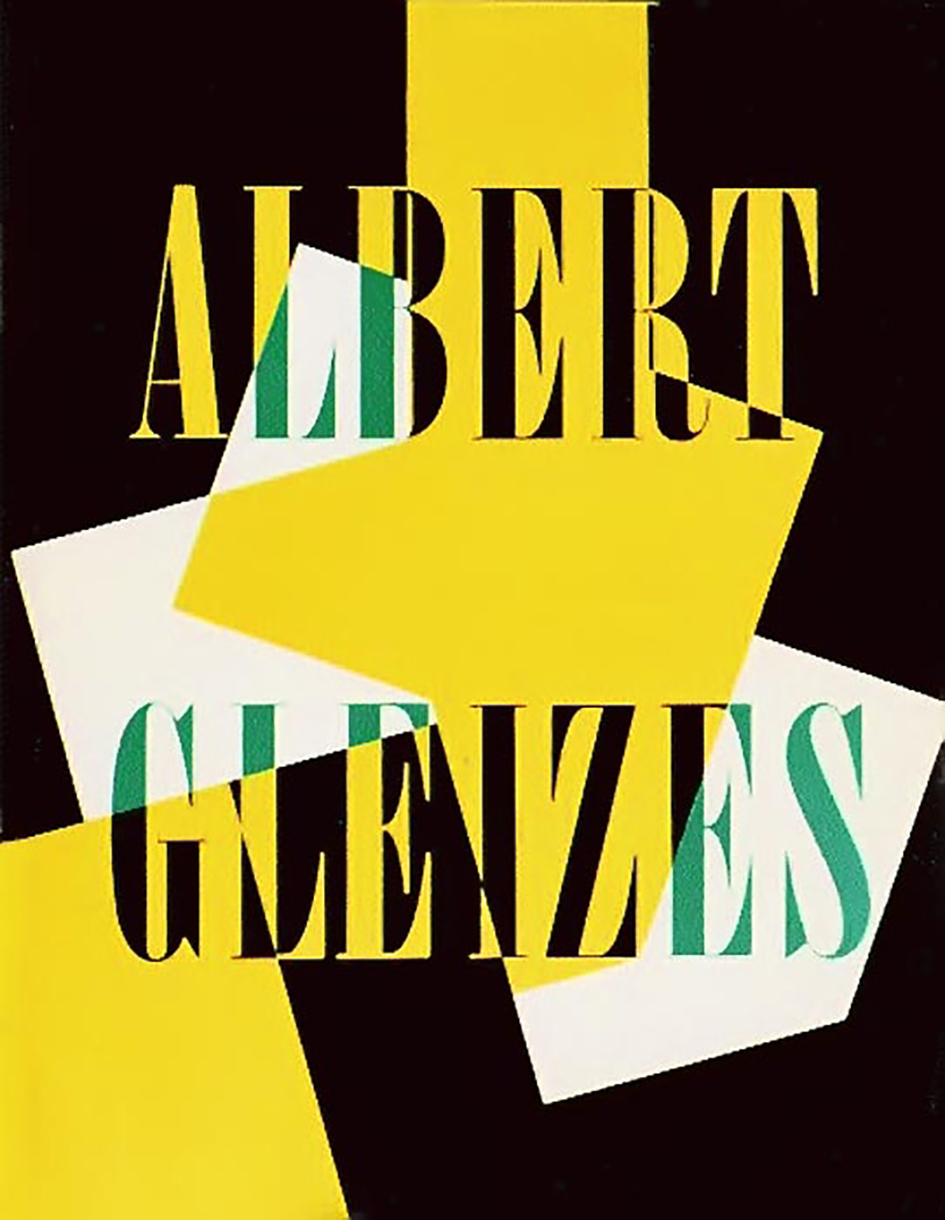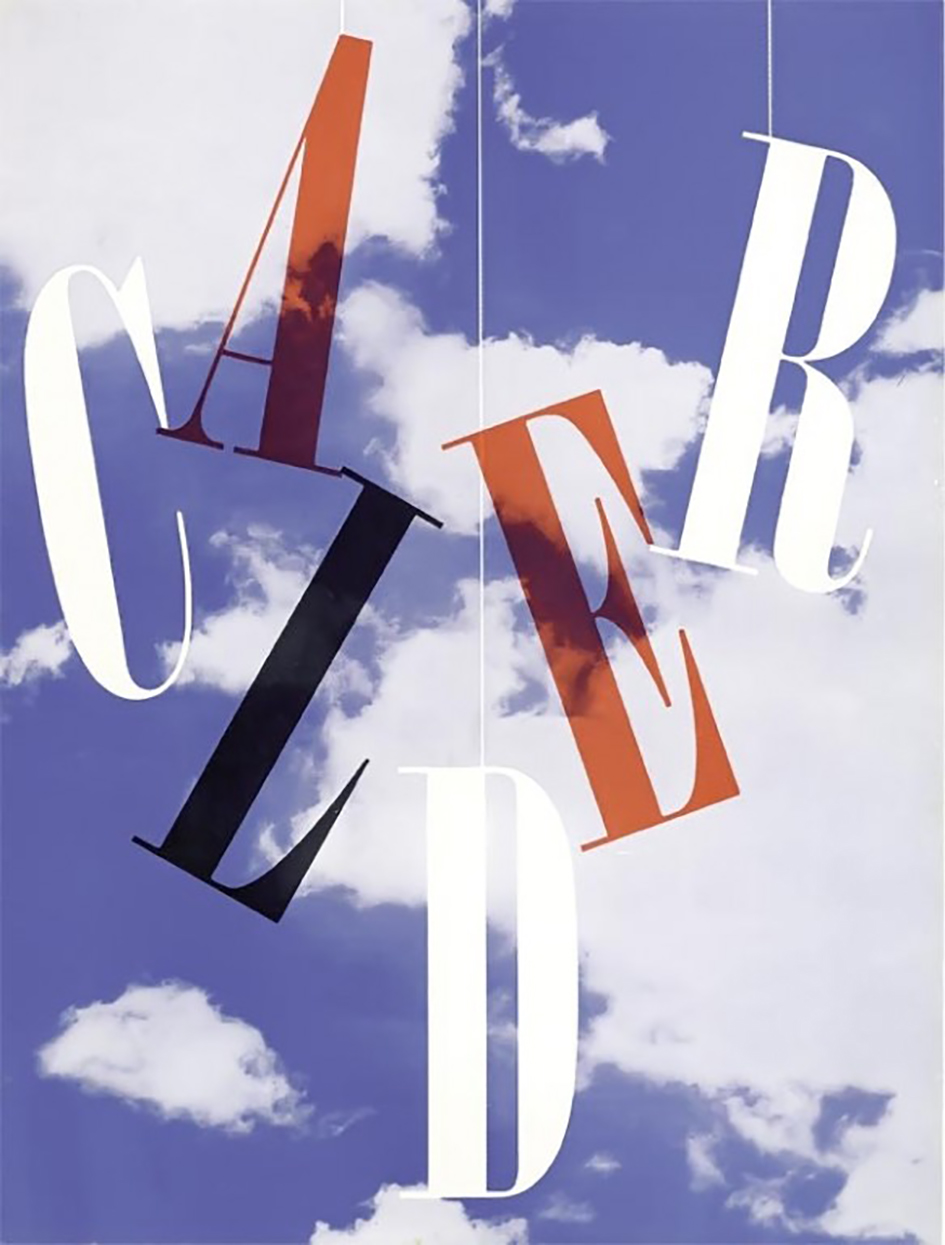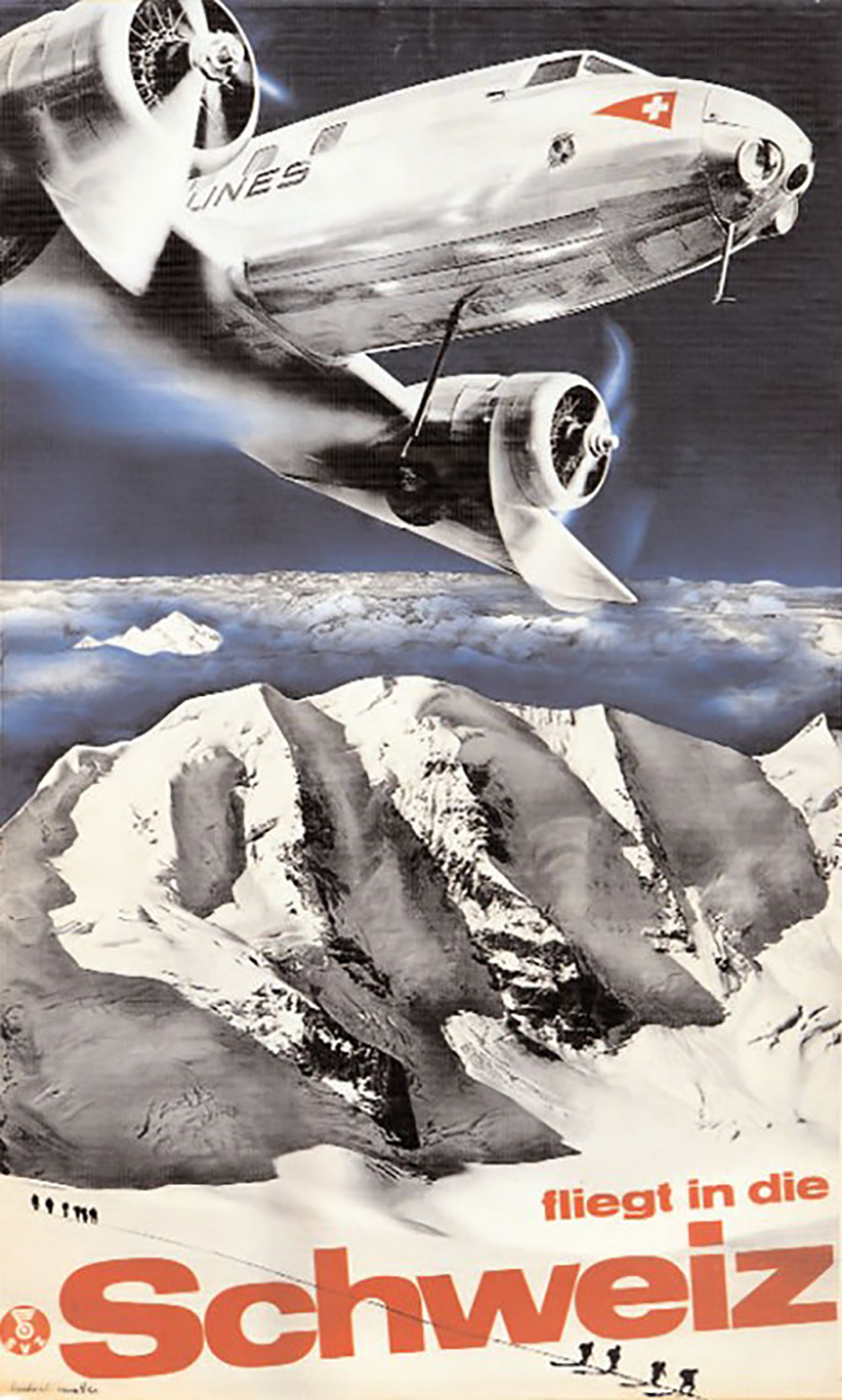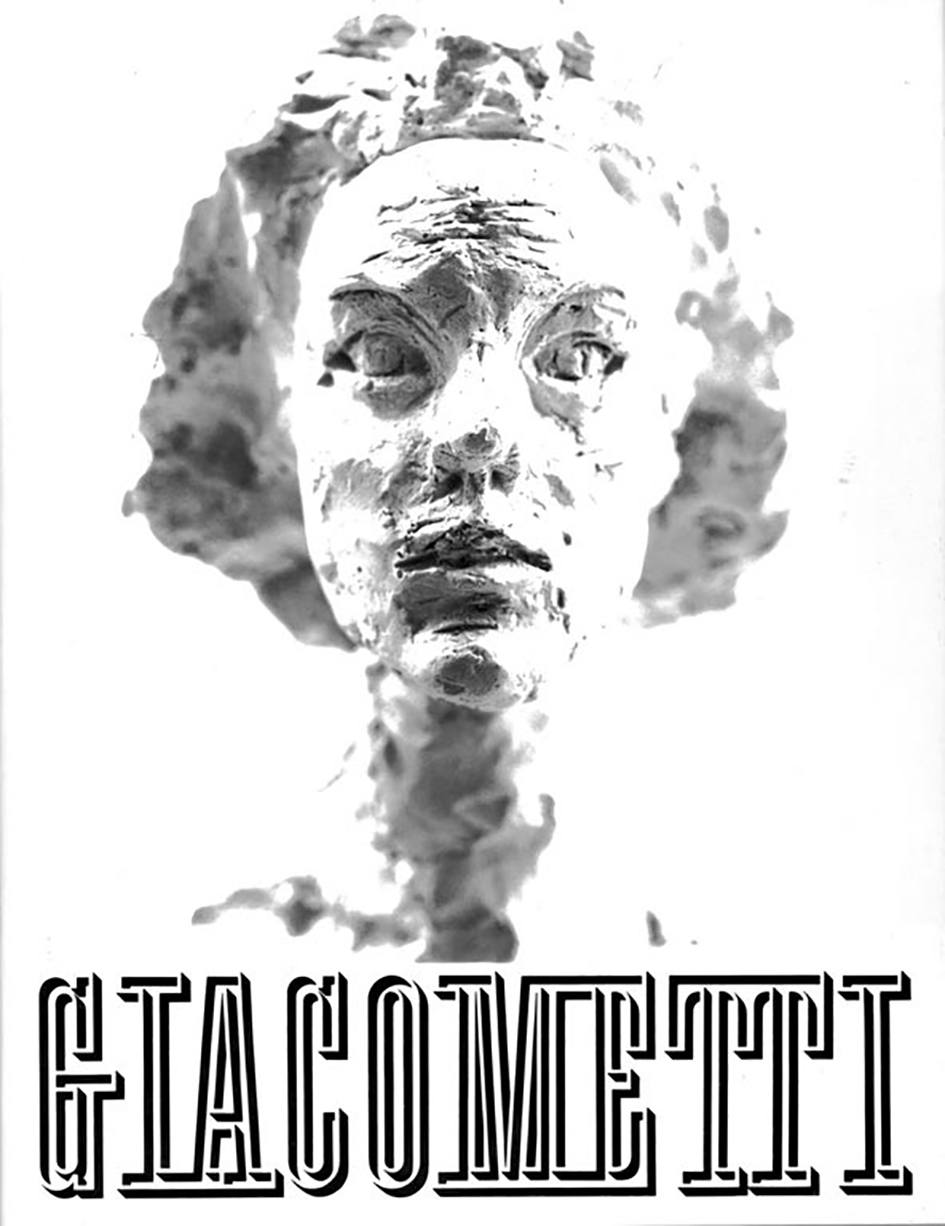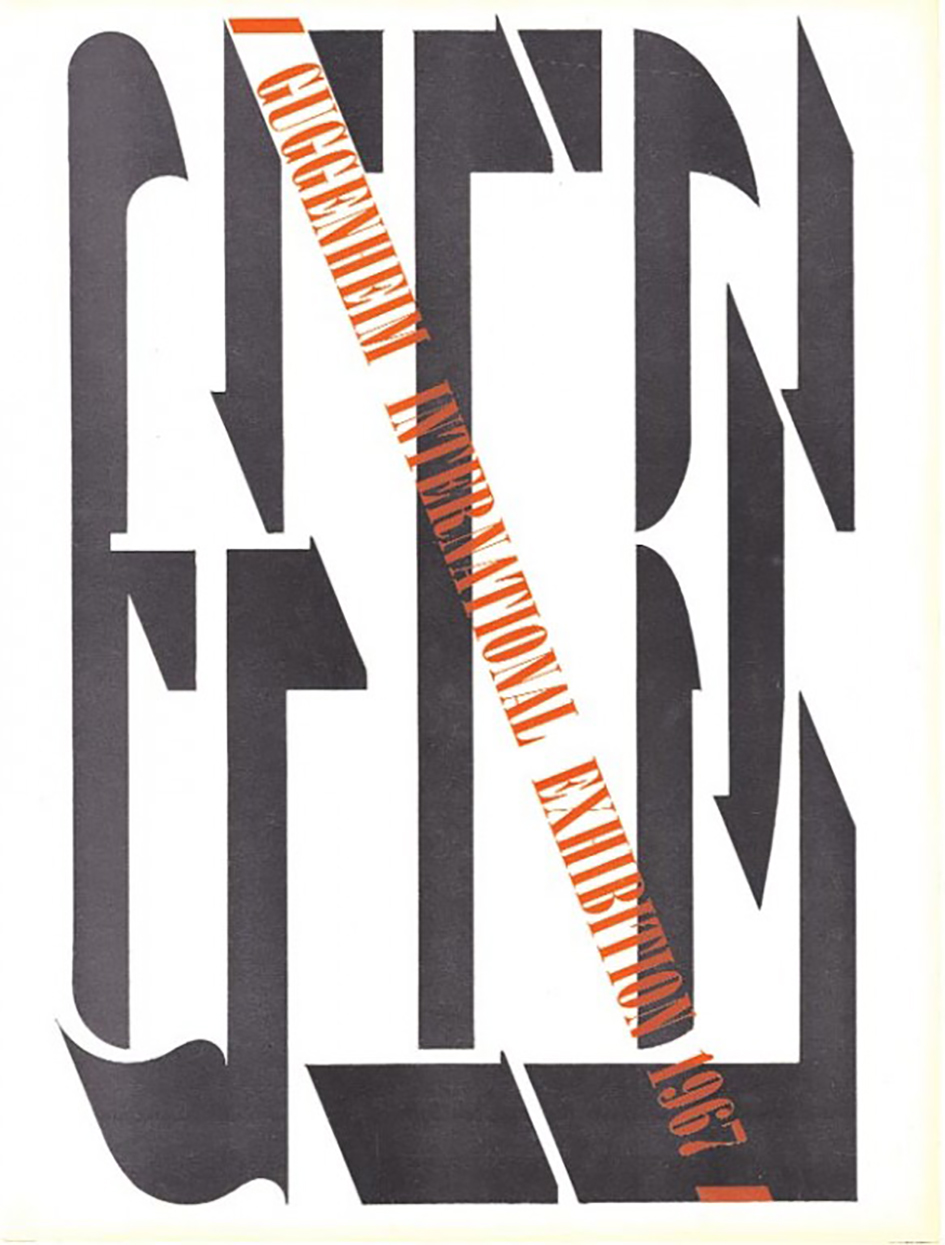
How Herbert Matter’s innovative typography shaped the visuals of a century
Herbert Matter is highly regarded as a pioneer in graphic design through his use of typography and photomontage in the commercial arts of the 20th century.
Born on April 25 in 1907 –the Swiss-born American photographer and graphic designer shaped through his innovative spirit the vocabulary of our world’s visual elements. Born in Engelberg, Switzerland, Matter studied painting at the École des Beaux-Arts in Geneva and at the Académie Moderne in Paris with Fernand Léger and Amédée Ozenfant.
After his collaborations with renowned artists Adolphe Mouron Cassandre, Le Corbusier and Deberny & Peignot Matter returned to Zurich in 1932. His work for the Swiss National Tourist Office and Swiss resorts is iconic as he used photomontage and typographic elements in ways no one had ever imagined prior to him.
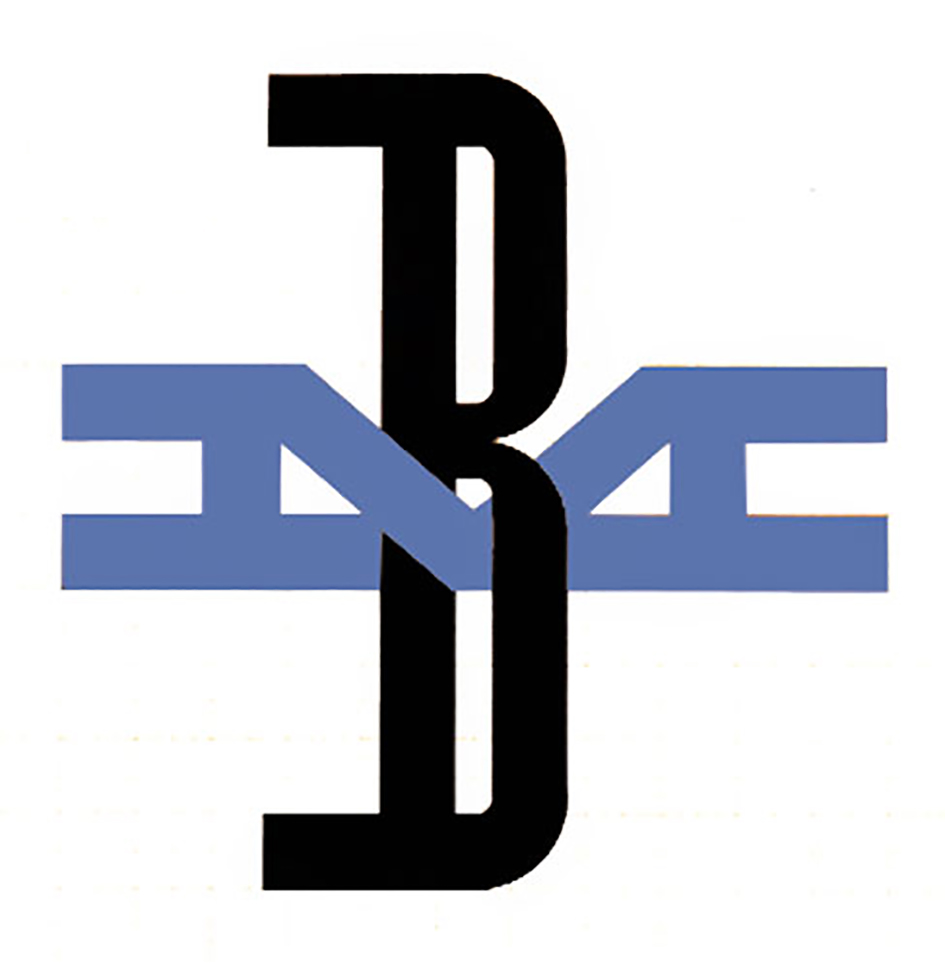
By 1936 Matter was hired by legendary art director Alexey Brodovitch in the USA and hic visuals graced the pages of magazines such as Harper's Bazaar and Vogue.
During World War II, Matter made striking posters for Container Corporation of America. In 1944 Matter became the design consultant at Knoll. “Herbert had a strong feeling for minute details and this was exemplified by the distinguished typography he did for the Knoll catalogues” pointed out Alvin Eisenman, head of the Design Department at Yale.
“In 1954, he was commissioned to create the corporate identity for the New Haven Railroad. The ubiquitous “NH” logo, with its elongated serifs, was one of the most identifiable symbols in America. Affinity for modern, avant-garde and nonobjective art was always evident, not only in Matter’s own work, but in his closest friendships” writes Steven Heller and David R. Brown.
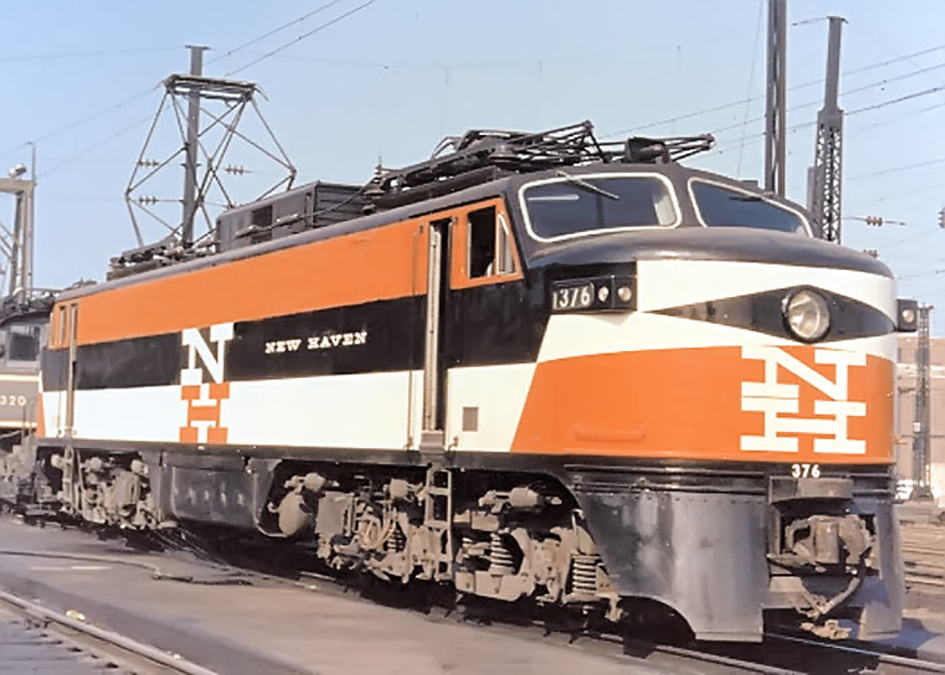
The close collaborator of Charles and Ray Eames served as design consultant to the Solomon R. Guggenheim Museum in New York and the Museum of Fine Arts in Houston. Matter was elected to the New York Art Director's Club Hall of Fame in 1977, received a Guggenheim Fellowship in photography in 1980 and the AIGA medal in 1983.
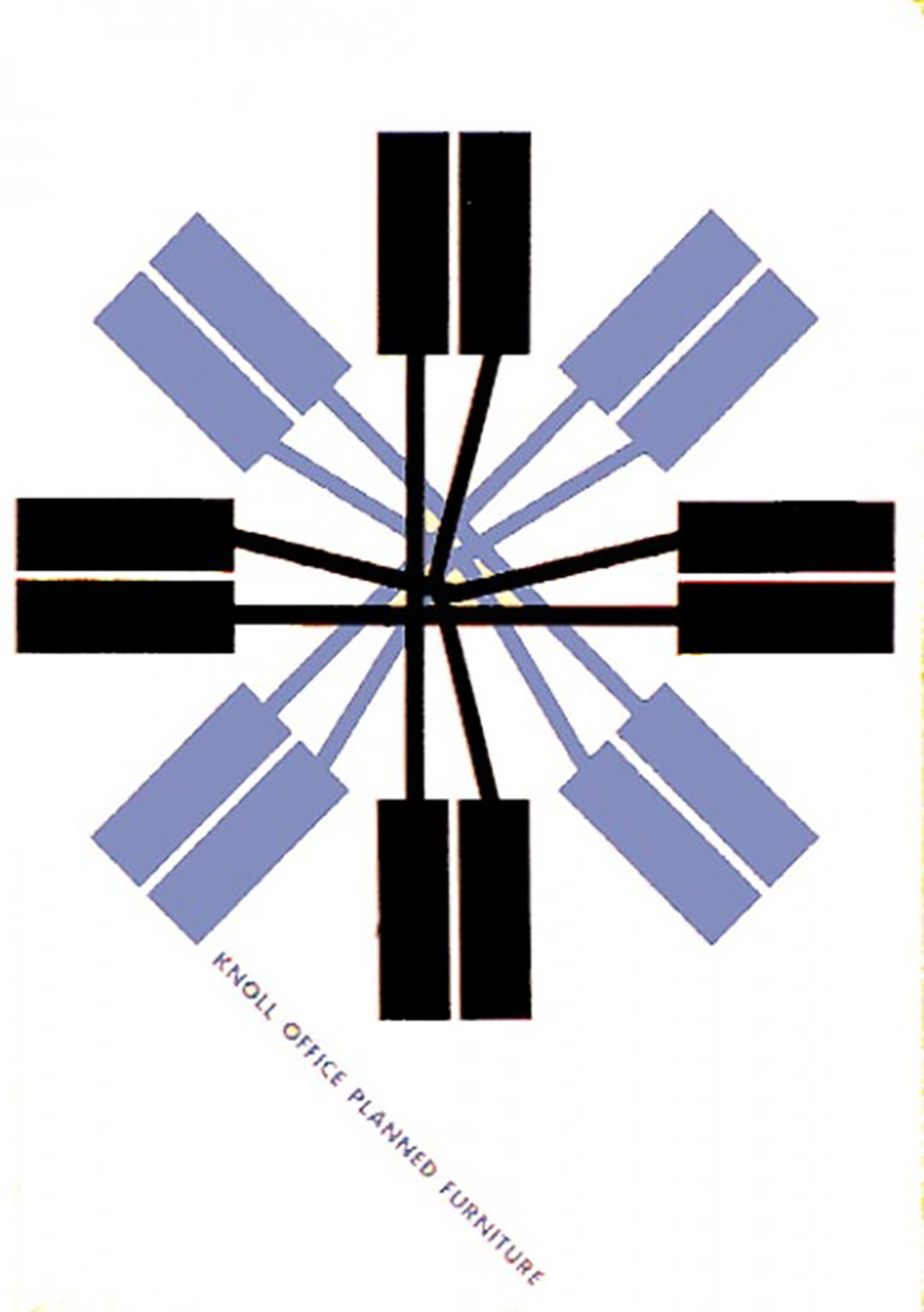
A man of visuals Matter and his wife Mercedes were friends with the painters Jackson Pollock, Willem de Kooning, fellow Swiss photographer Robert Frank and Alberto Giacometti.
“Herbert’s background is fascinating and enviable” said design-legend Paul Rand. “He was surrounded by good graphics and learned from the best… The absence of pomposity was characteristic of this guy" he added.
Matter died on May 8, 1984, in Southampton, New York.